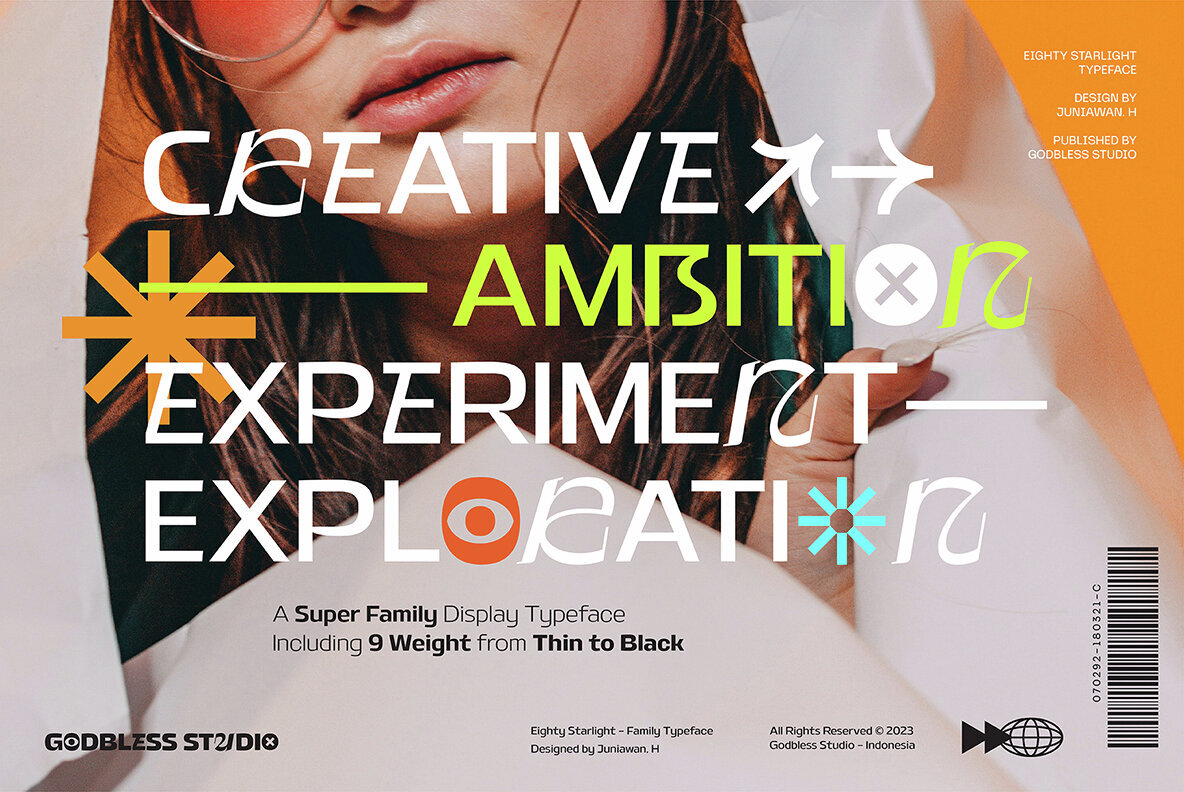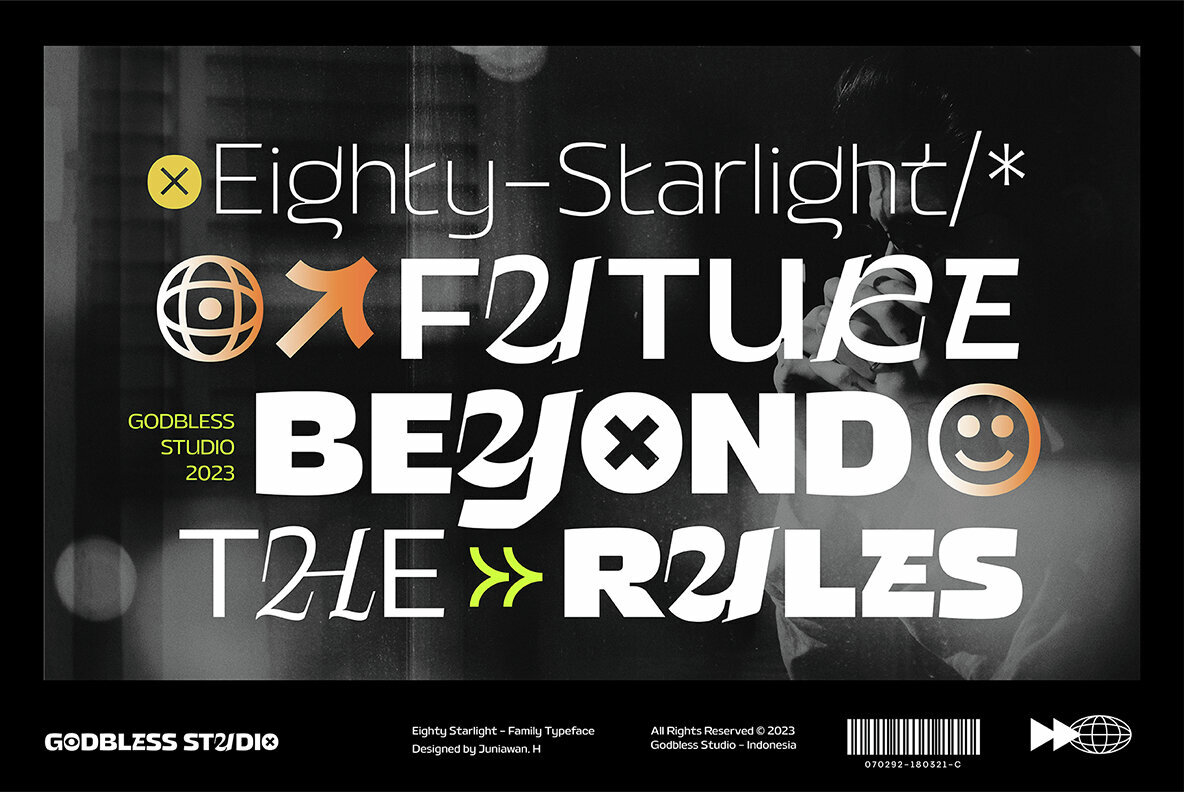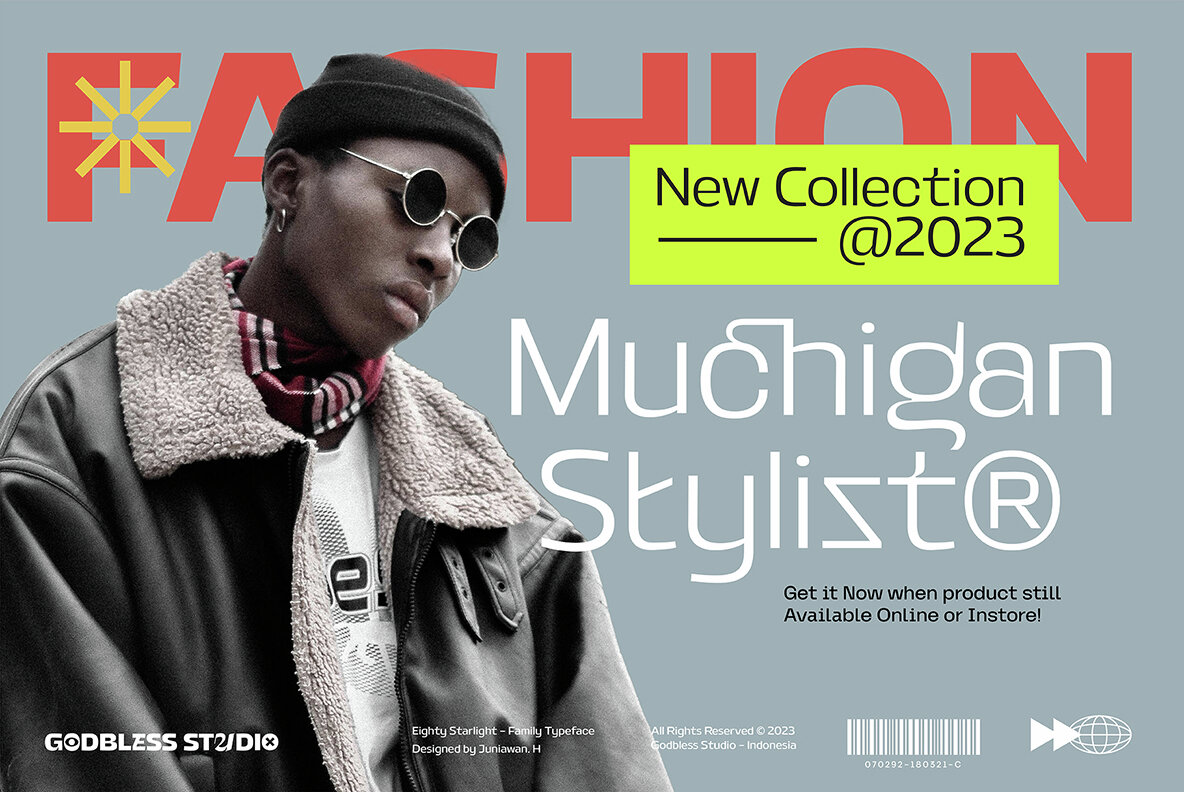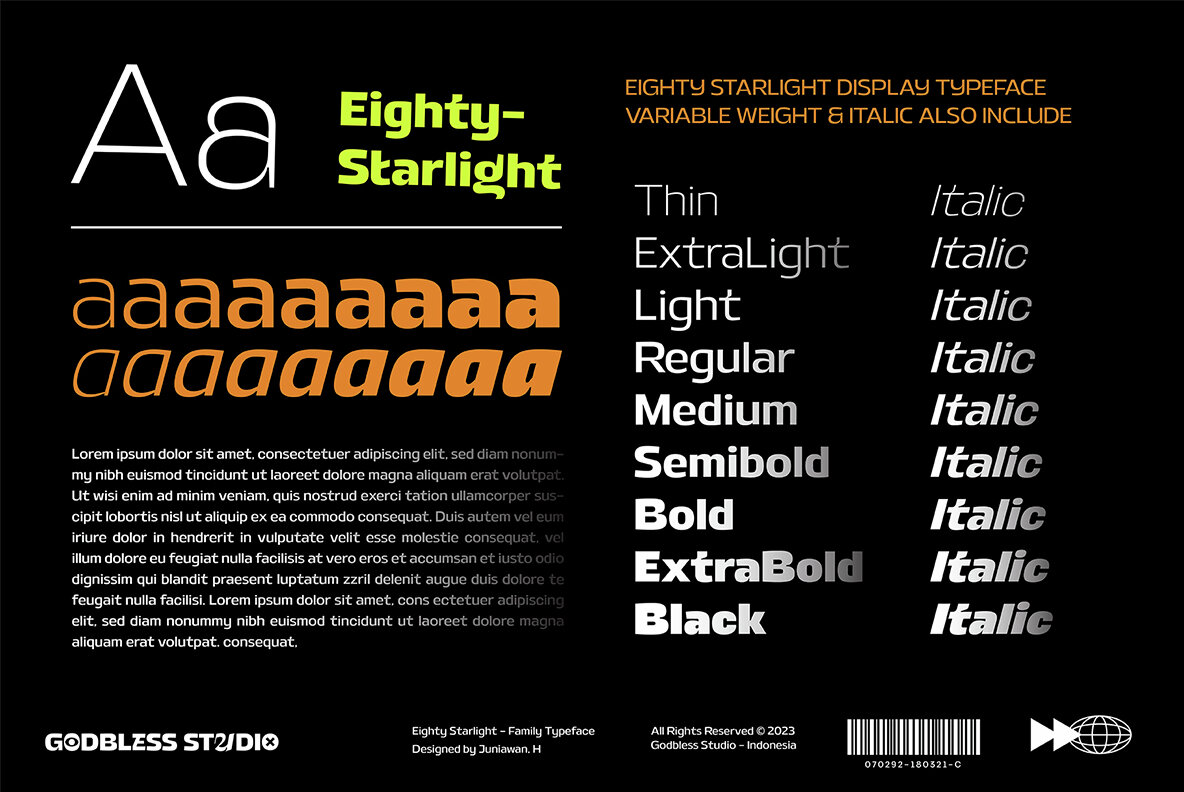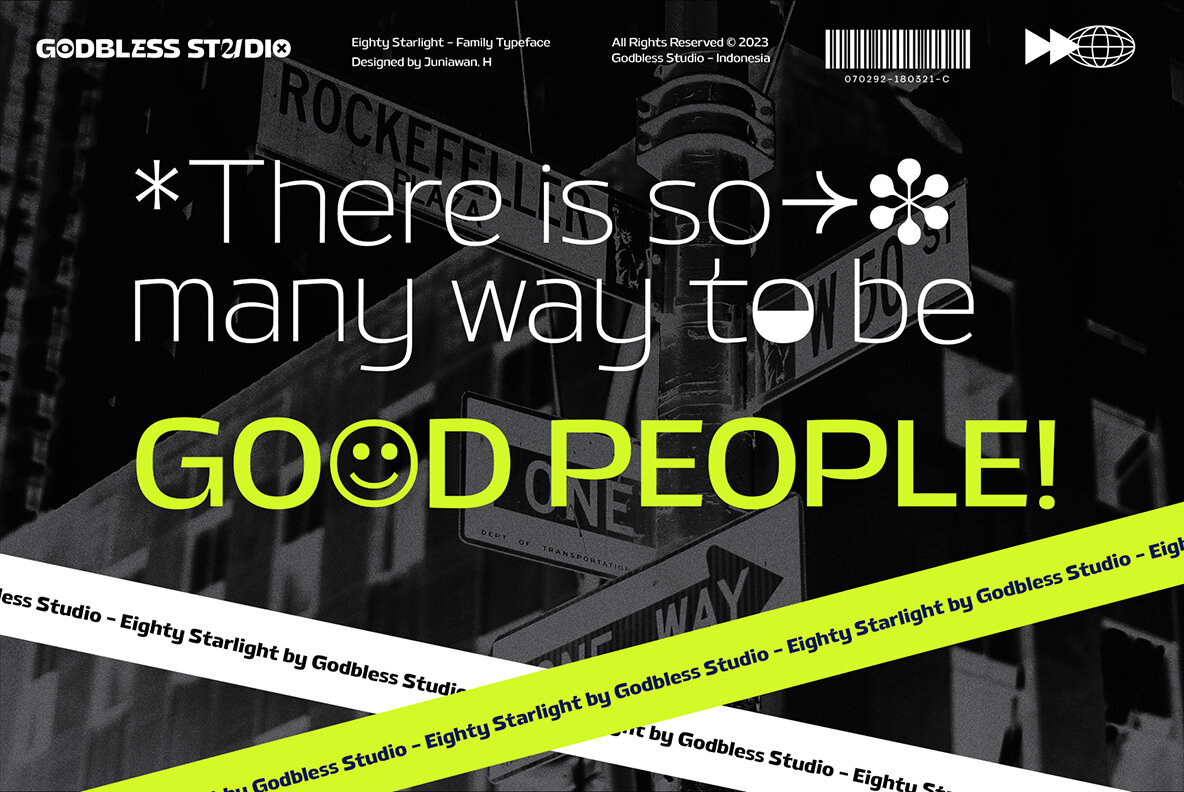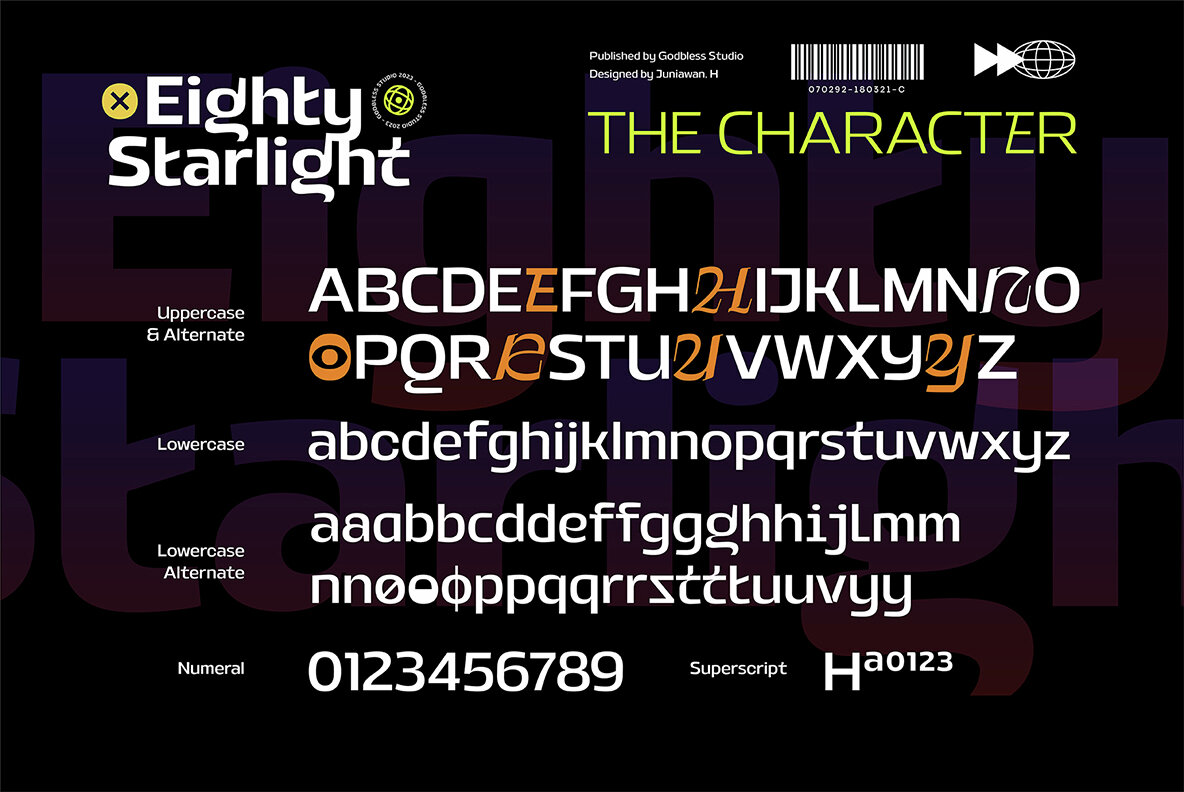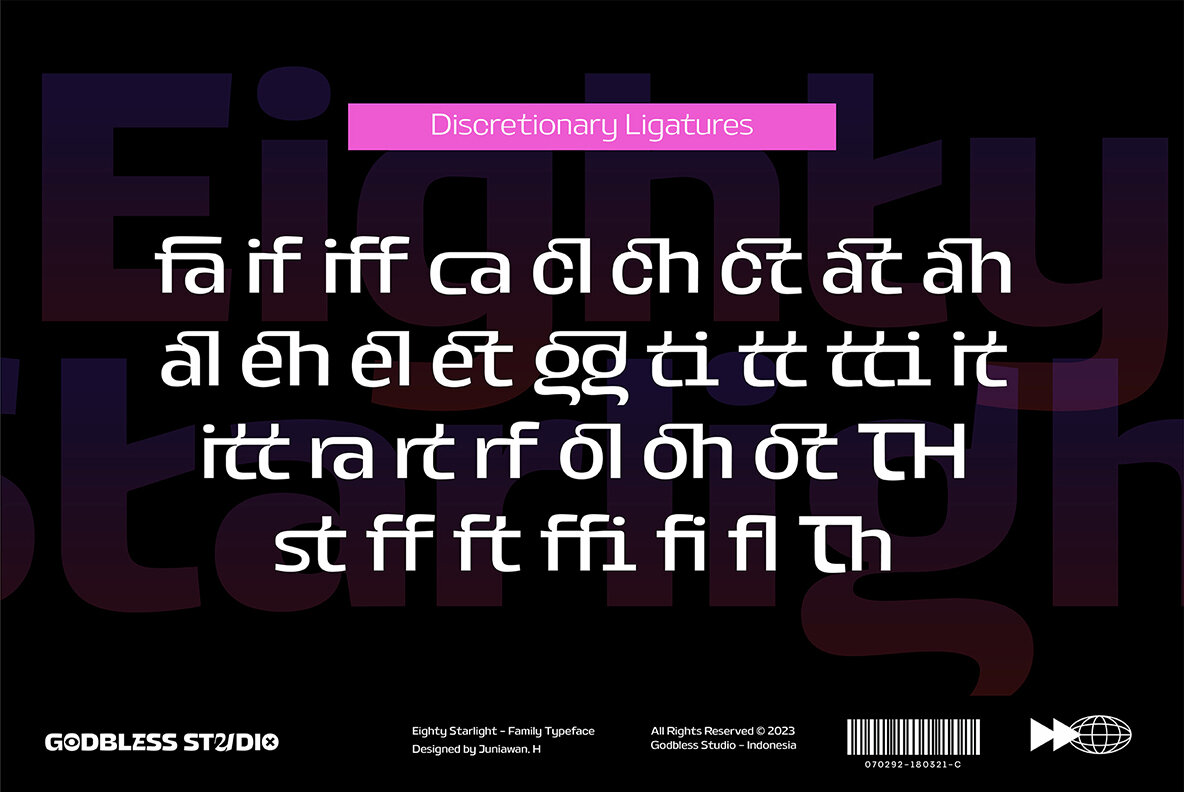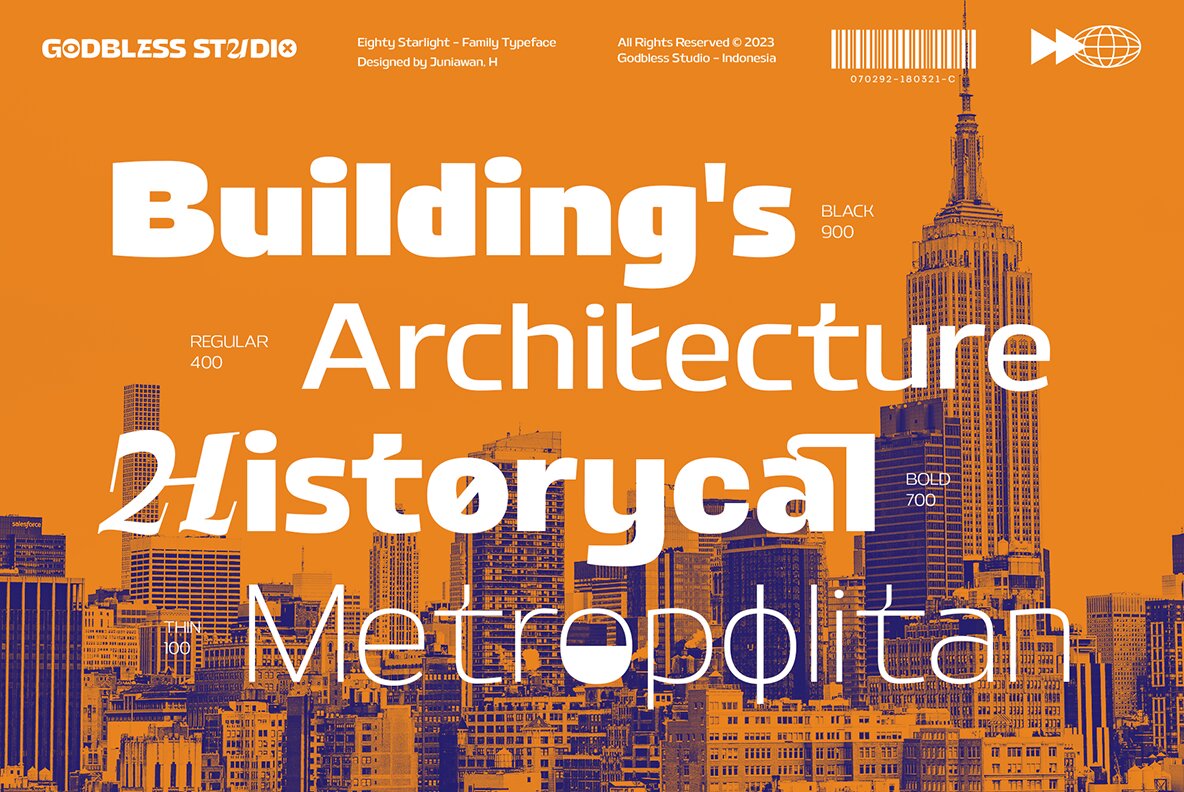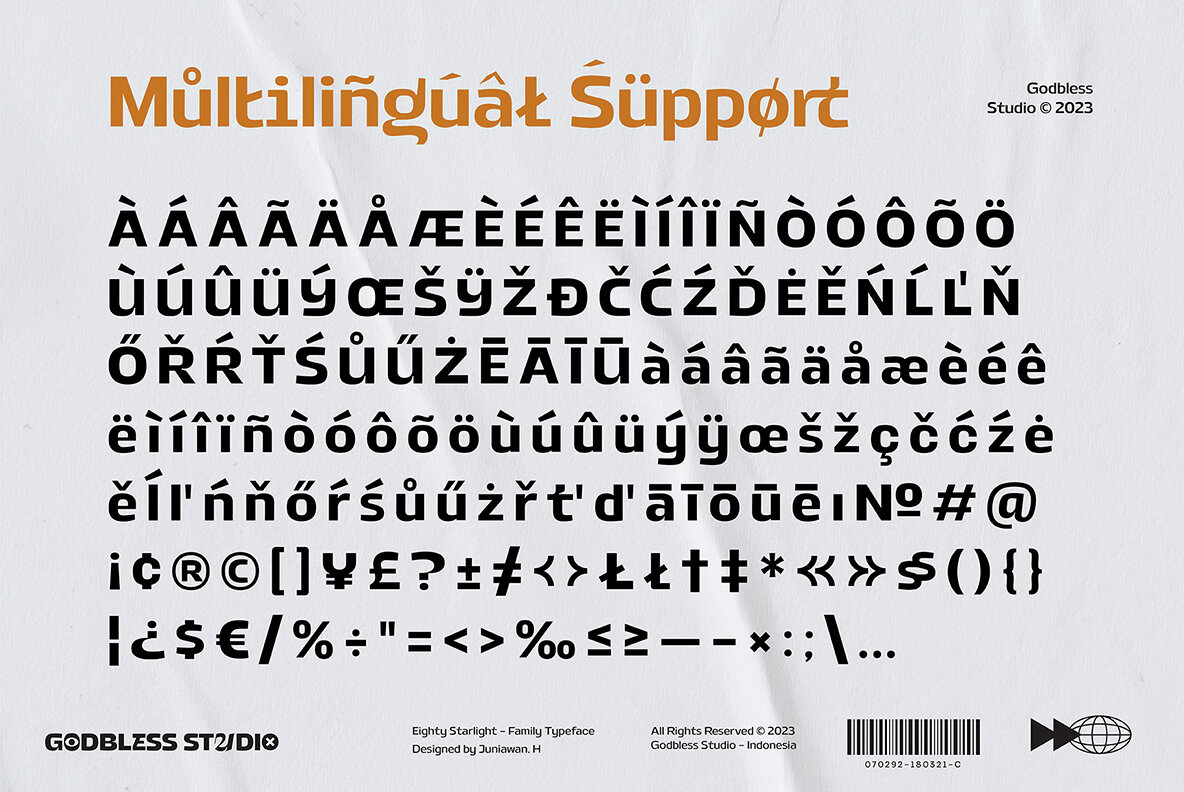
Eighty Starlight Font
Eighty Starlight is a font with a futuristic and experimental concept, designed to resonate with current design trends. This typeface is characterized by its strong and charismatic presence, crafted with inktrap details and alternate characters that add style and versatility. With 18 variations covering nine weights from thin to black, plus italic versions, Eighty Starlight offers extensive options for diverse design needs and visual impact.
Primarily suited for display purposes, Eighty Starlight includes alternate characters, ligatures, discretionary ligatures, and comprehensive multilingual support. The font also ensures precise typographic detail with numerals, punctuation, and symbols. Ideal for making a bold statement in any project, this versatile font system provides a broad range of stylistic choices.